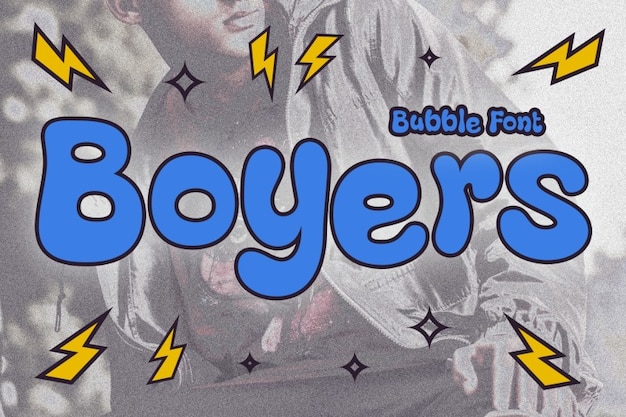
Boyers Regular Font
"Boyers Regular" font embodies the effervescence of celebration, like bubbles rising in a glass of champagne. Its electric energy evokes cheers and excitement, reminiscent of crackling bolts of lightning. With a sleek, modern design, it pulsates with an electrical vibe, injecting projects with dynamic flair. Perfect for capturing attention and sparking enthusiasm, it's the font of choice for those who dare to stand out in a crowd.